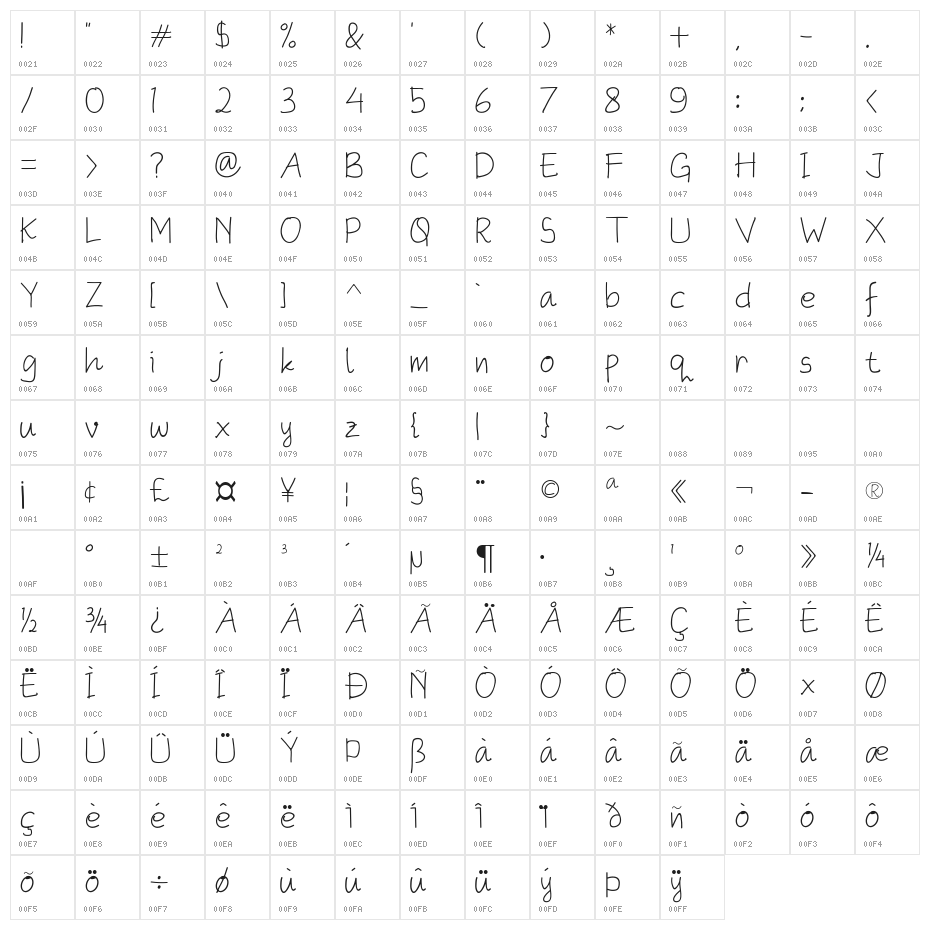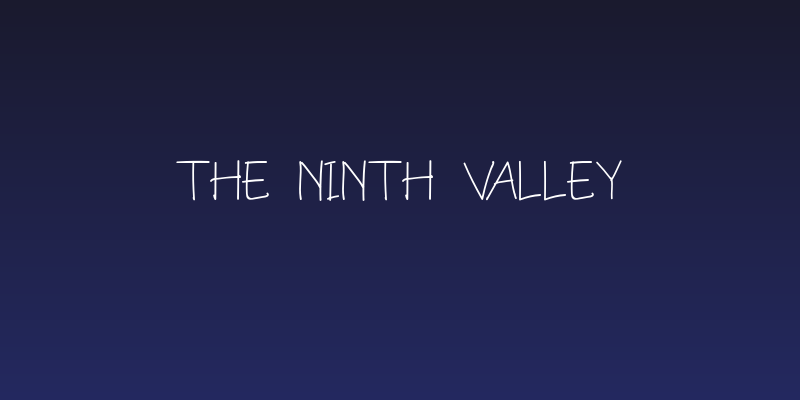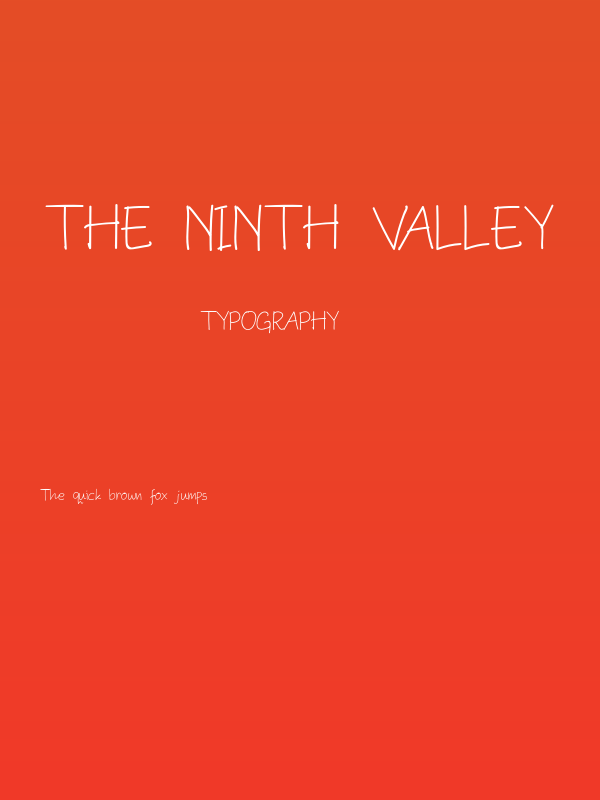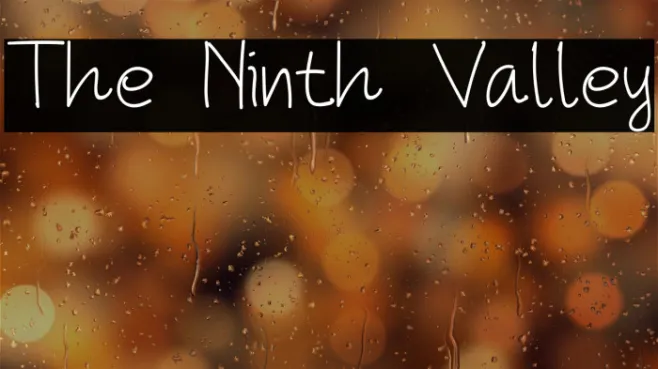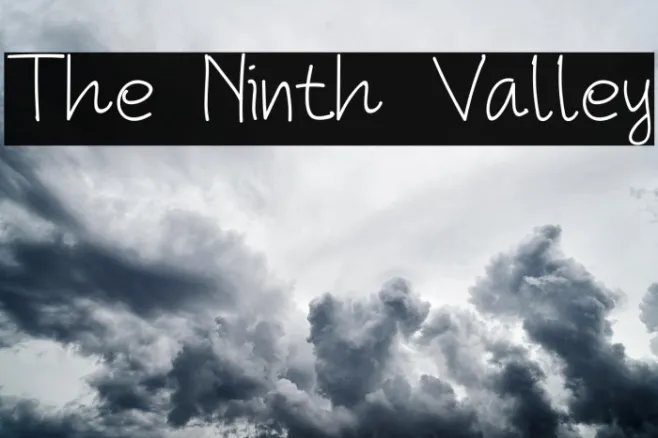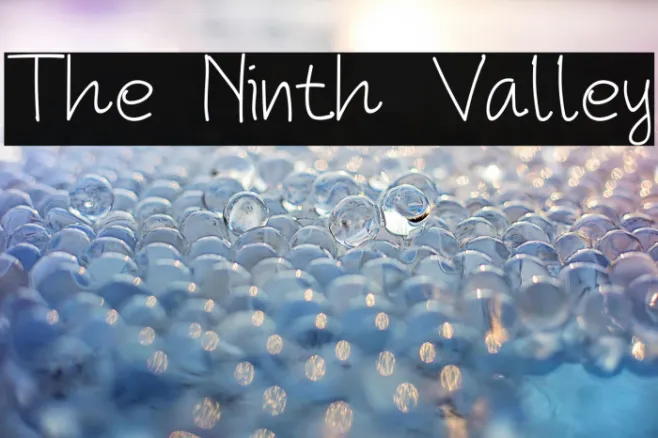
The Ninth Valley Font
The Ninth Valley Description
This font features a playful and casual handwritten style, characterized by its irregular strokes and slightly uneven baseline. The letters have a whimsical, organic feel, with rounded edges and a friendly appearance. The uppercase and lowercase letters maintain a consistent style, with a slight slant that adds to the informal aesthetic. The numerals and special characters follow the same design principles, ensuring a cohesive look across all characters. This font is perfect for projects that require a personal touch or a relaxed, approachable vibe.
| Use Case | Headlines, Informal text, Personal projects |
| Proposed Projects | Ideal for greeting cards, children's books, personal blogs, and informal branding. |